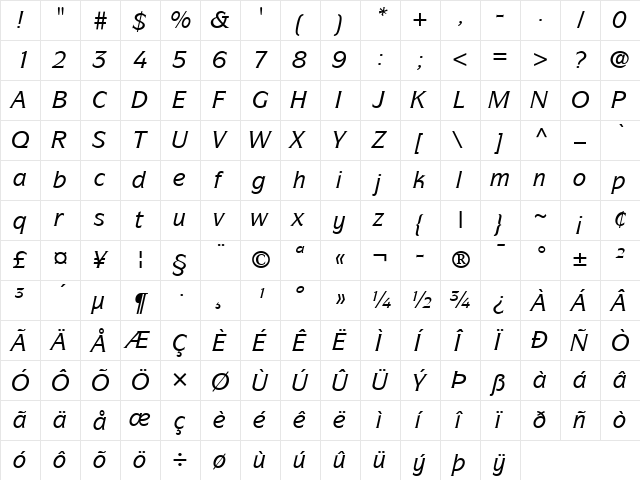
Symbol LT Medium Italic Font Preview
Design Context for Symbol LT Medium Typeface
Symbol LT Medium takes a measured approach to typography — its balanced proportions and neutral character make it a reliable workhorse for both digital and print work. The dynamic lean of this cut emphasises speed and emphasis in any layout. The delicate stroke weight brings airiness and refinement to layouts.